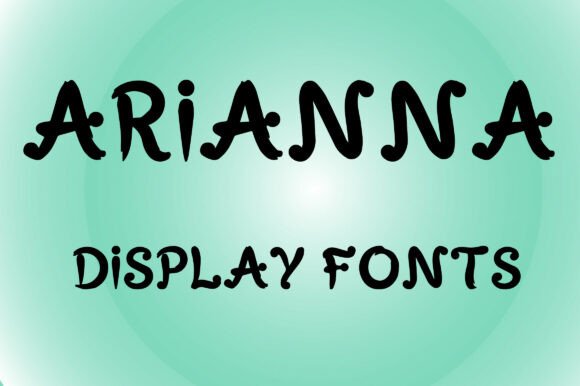
The Magical World of Arianna Font: A Designer’s Delight
I’ll never forget the time I was working on a children’s book project, and my client asked for a font that was “fun, magical, and playful.” I scoured the internet, tried countless fonts, but nothing seemed quite right. That was until I stumbled upon Arianna Font. Its whimsical handcrafted style and charming artistic personality instantly won me over. In this article, I’ll share my experience with Arianna Font, its features, and how to make the most of it in your designs.
A First Impression: What Makes Arianna Font Special
Arianna Font is a decorative display font that boasts bold black strokes, rounded curves, curled terminals, and fun uneven shapes. Its uppercase letterforms (A-Z) and numbers (0-9) are perfect for creating eye-catching designs. The font’s playful and magical vibe makes it ideal for logos, branding, posters, packaging, invitations, children’s designs, social media graphics, book covers, and creative projects.
What I Love About Arianna Font
- ✨ Unique and playful design that stands out in any project
- ✅ Easy to read and understand, even in large blocks of text
- 💫 Perfect for children’s designs, book covers, and social media graphics
- 🎉 Fun and memorable typeface that adds a touch of magic to any design
While Arianna Font is an excellent choice for many projects, there are a few things to keep in mind:
- ⚠️ Limited to uppercase letters and numbers, which may not be suitable for body text or formal designs
- 🤔 May not be the best choice for very small font sizes or low-resolution images
The Story Behind Arianna Font
Arianna Font was designed with the intention of creating a unique, handcrafted typeface that would bring a touch of magic to any design. Inspired by the world of children’s books and illustration, the font’s creator aimed to craft a font that was both fun and memorable. With its bold black strokes and curled terminals, Arianna Font is sure to delight designers and audiences alike.
Q: What type of projects is Arianna Font best suited for?
A: Arianna Font is perfect for logos, branding, posters, packaging, invitations, children’s designs, social media graphics, book covers, and creative projects that need a fun and memorable typeface.